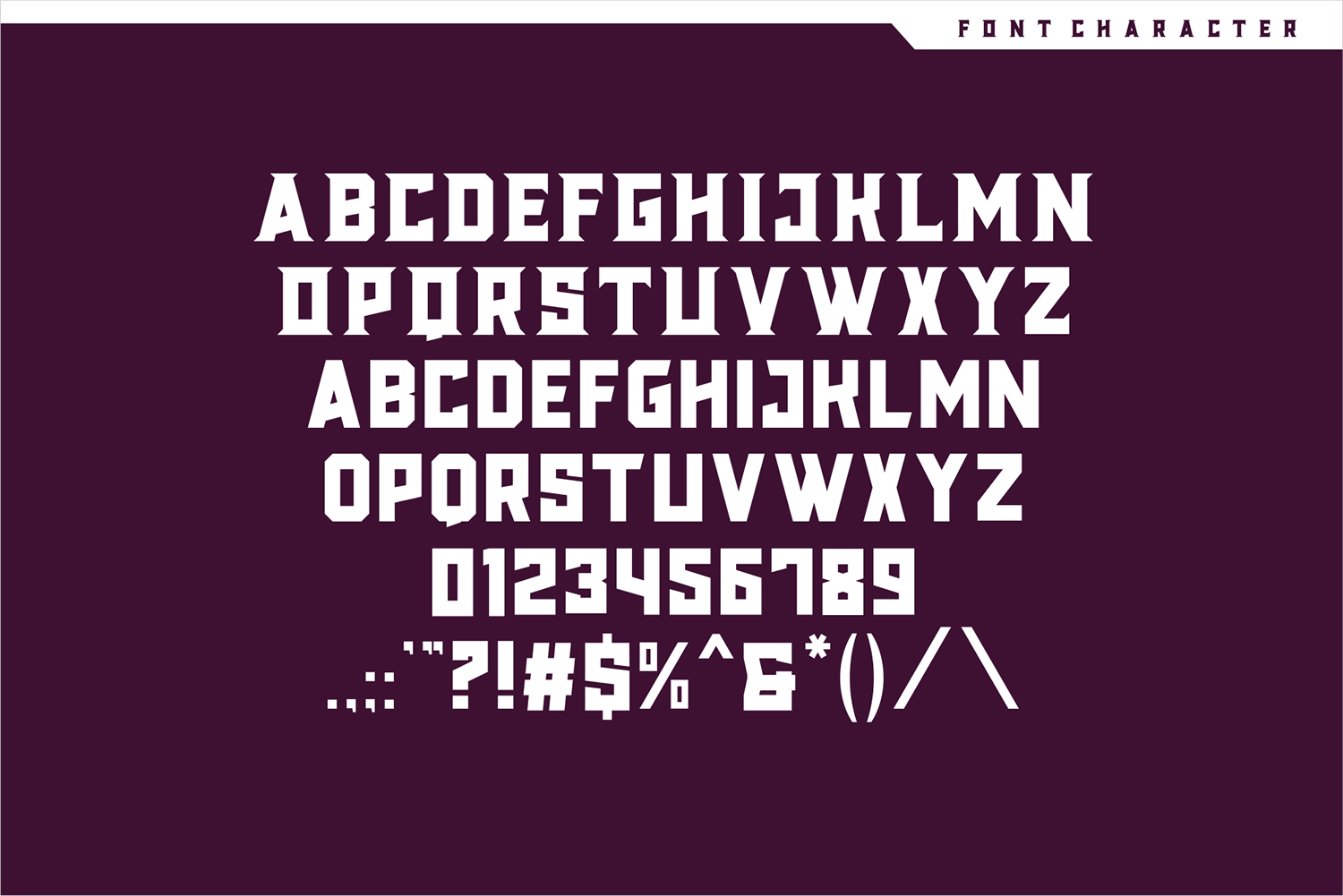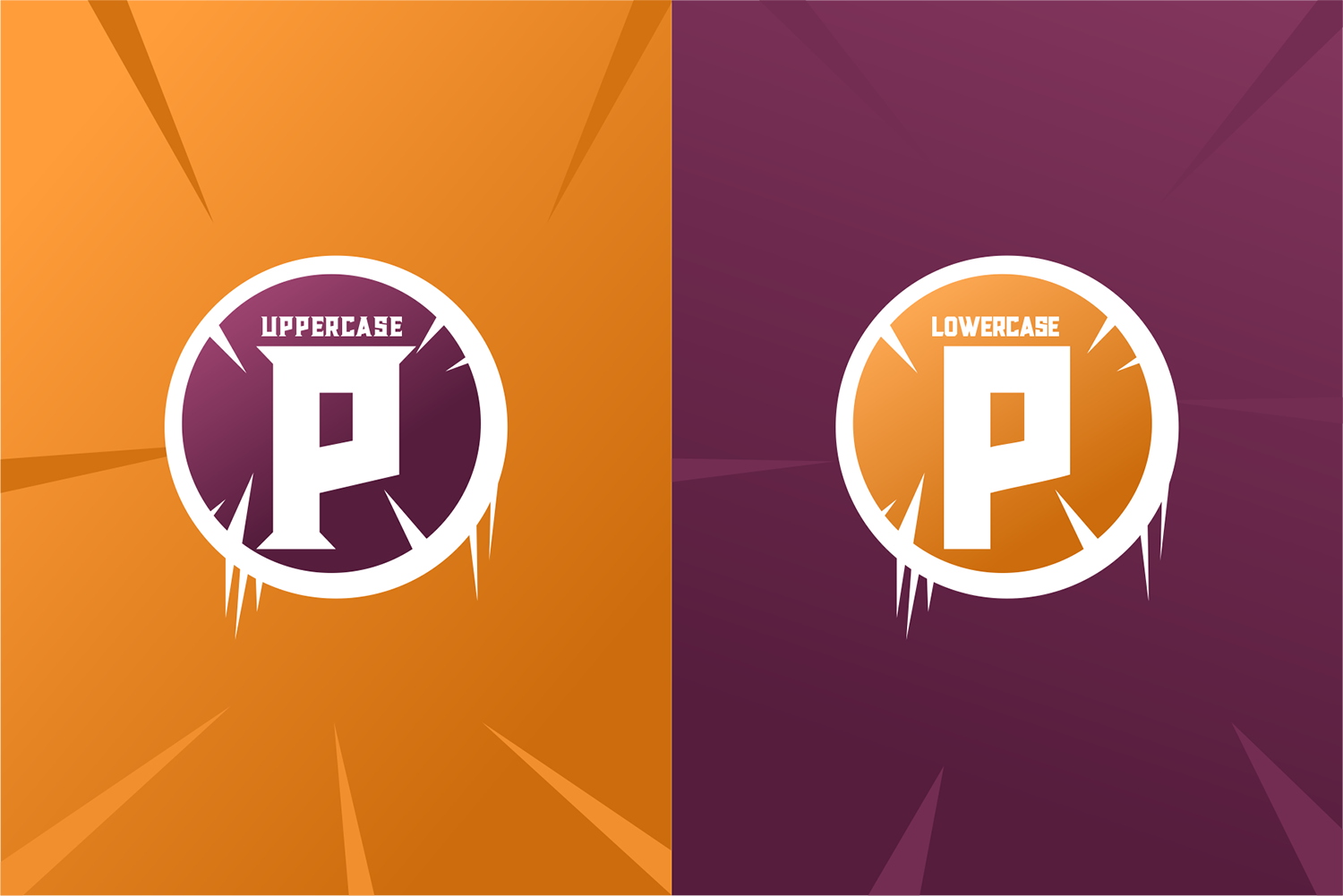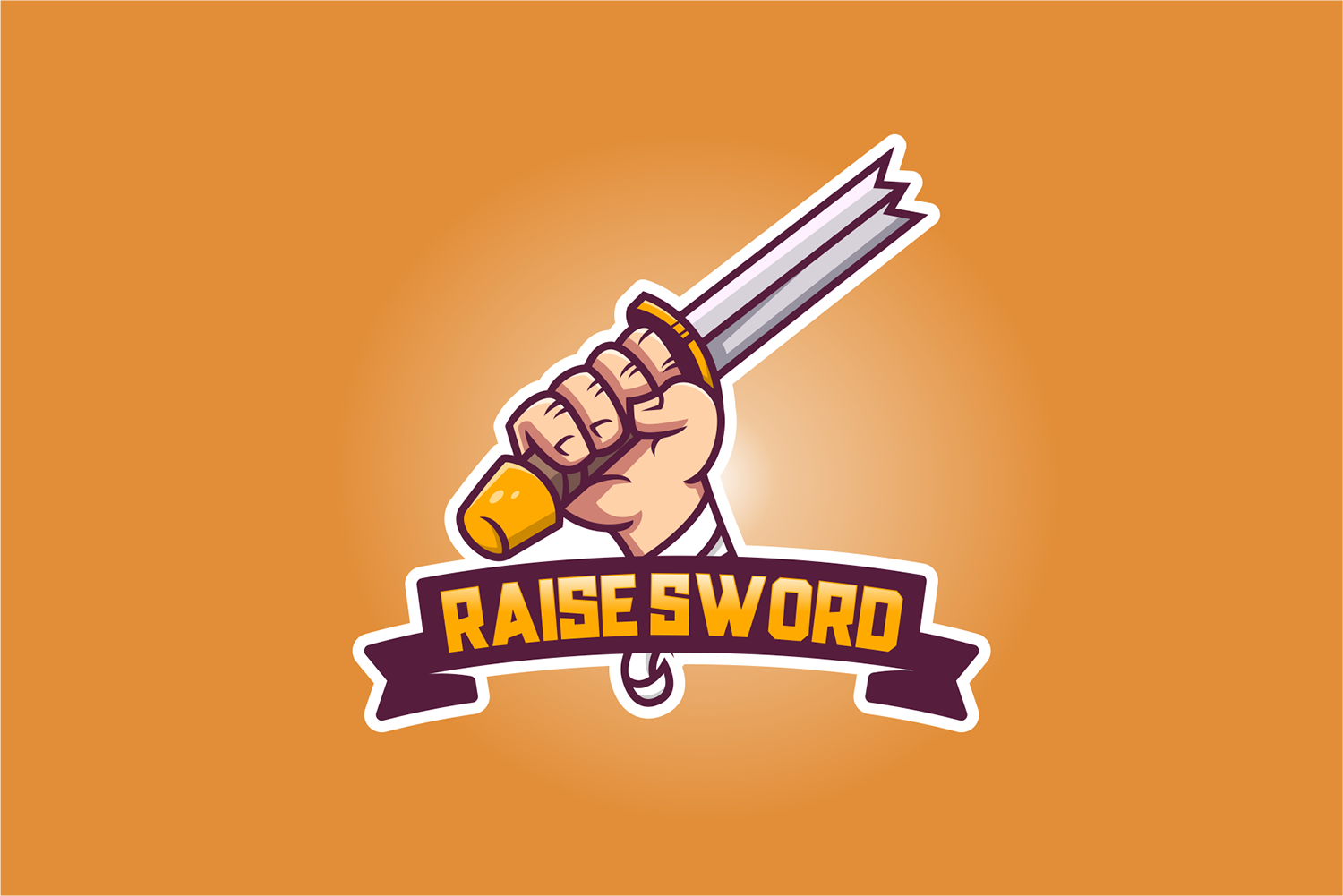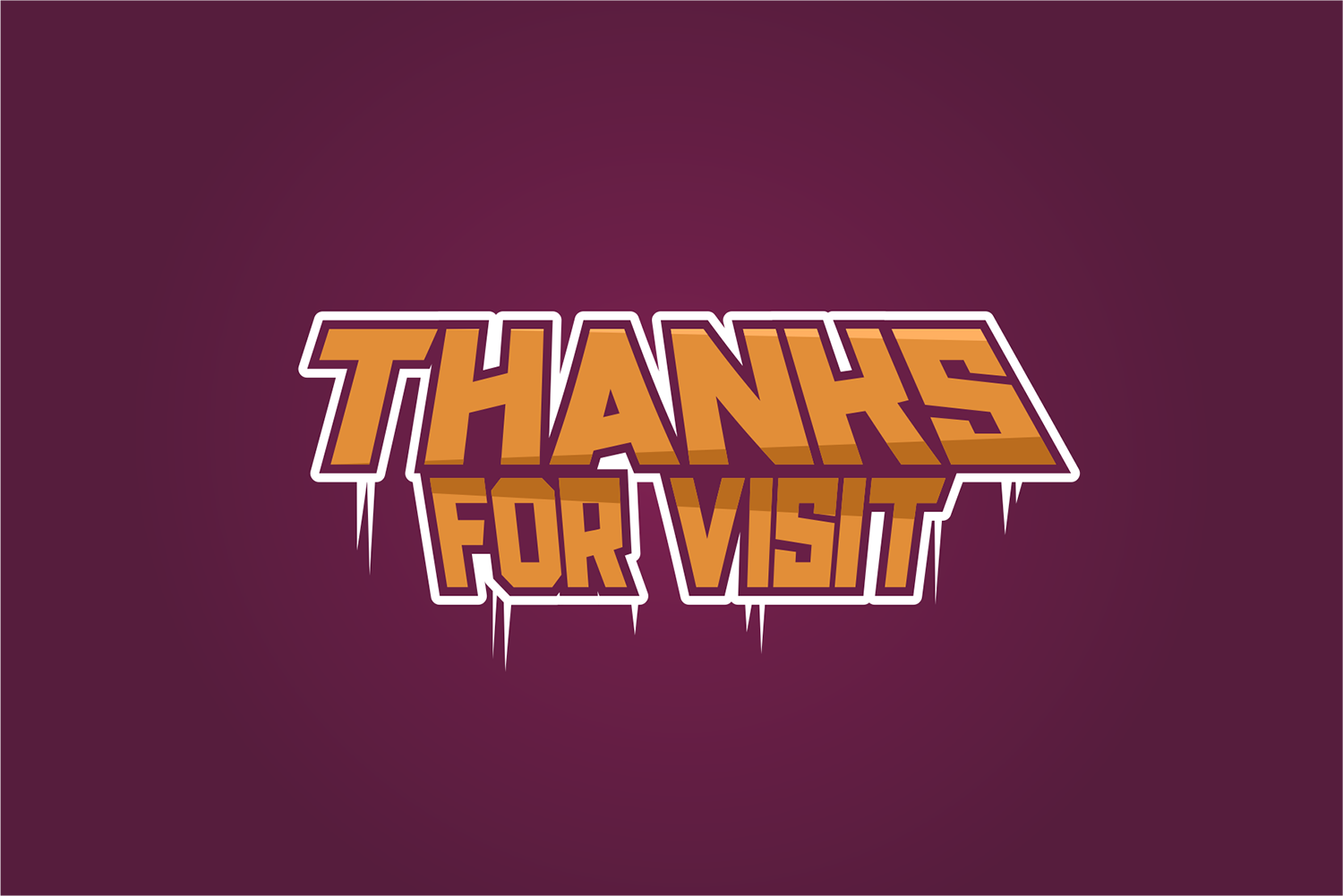
Prodush Free Font
Prodush Free Font is designed with uppercase characters. This font is perfect for logo, poster, label product, or whatever. This free typeface was designed by a talented Holis Majid. If you like it don’t forget to check out the full version.